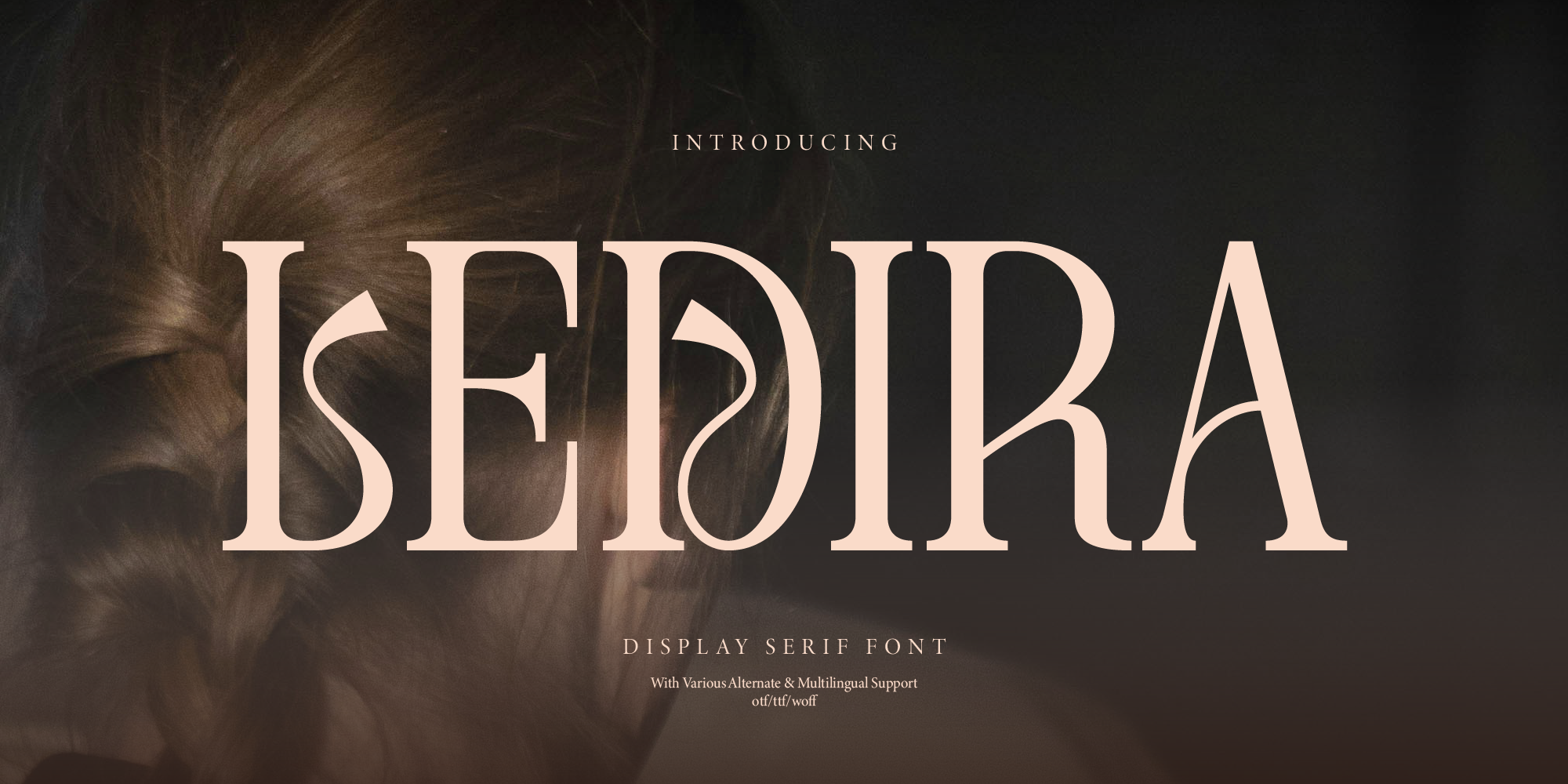
Ledira Font is perfect for branding projects, logo design, wedding invitations, social media posts, advertisements, product packaging, product designs, labels, photography, watermarks, special events, and any project that requires a sophisticated typography solution.
What makes Ledira Font exciting is its unique blend of modern elegance and timeless sophistication. This versatile typeface captures attention with its clean lines and distinctive character shapes, making it an ideal choice for designers who want to create memorable visual experiences. The font's balanced proportions and carefully crafted letterforms ensure excellent readability across various applications, from digital screens to print materials.
Ledira Font family includes multiple weights and styles, offering designers flexibility in their creative projects. The font family typically features regular, bold, light, and italic variations, allowing for hierarchical text arrangements and dynamic typographic compositions that enhance visual communication.
Whether you're working on corporate identity projects, editorial designs, or creative campaigns, Ledira Font Free Download provides the professional quality and aesthetic appeal that modern design demands. Its contemporary style makes it suitable for tech companies, fashion brands, luxury products, and creative agencies looking to establish a strong visual presence.
The font's versatility extends to both headline and body text applications, making it a valuable addition to any designer's typography toolkit. With its exceptional legibility and stylish appearance, Ledira Font ensures your message stands out while maintaining professional credibility across all design mediums.